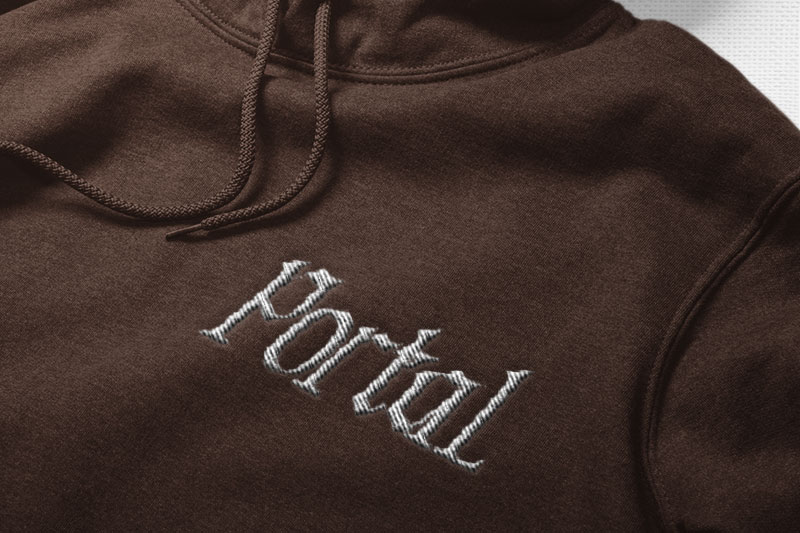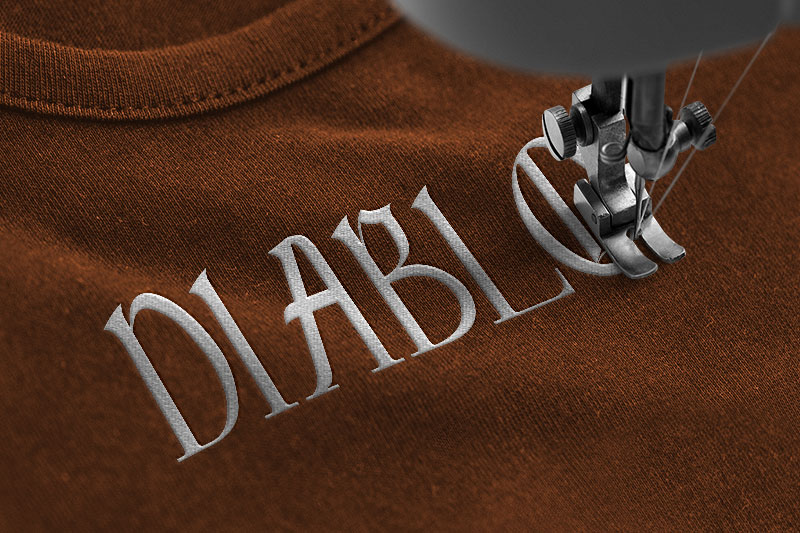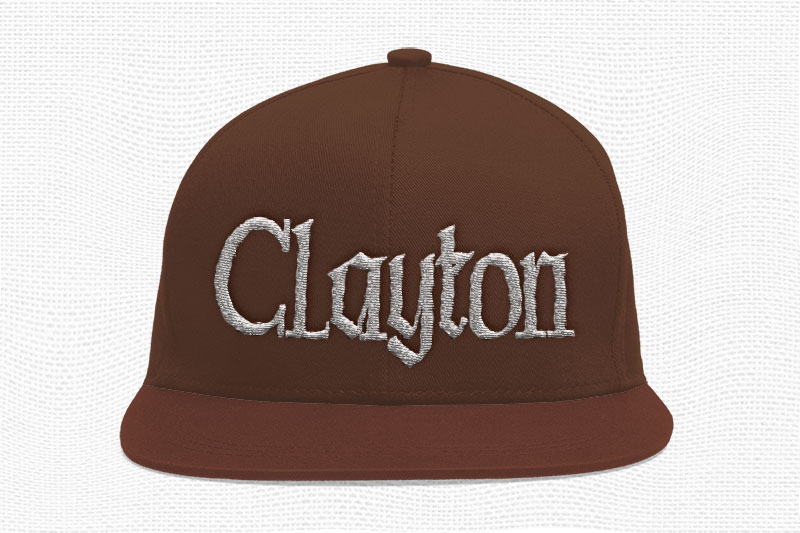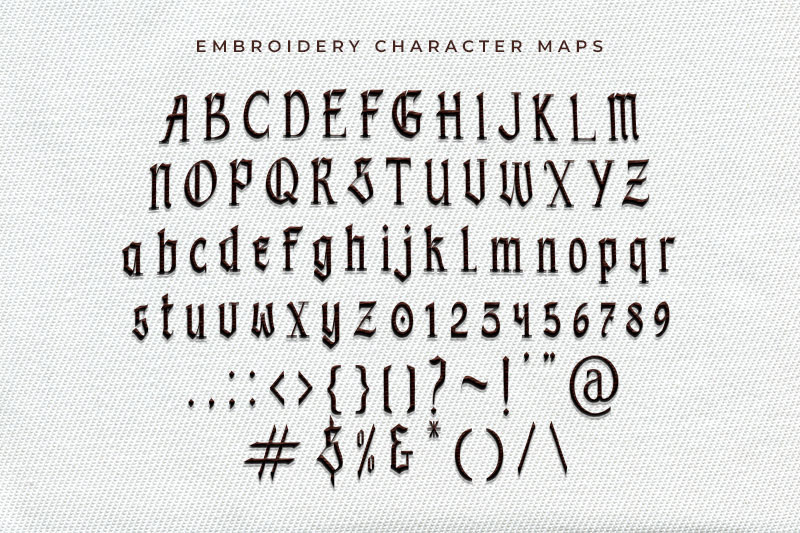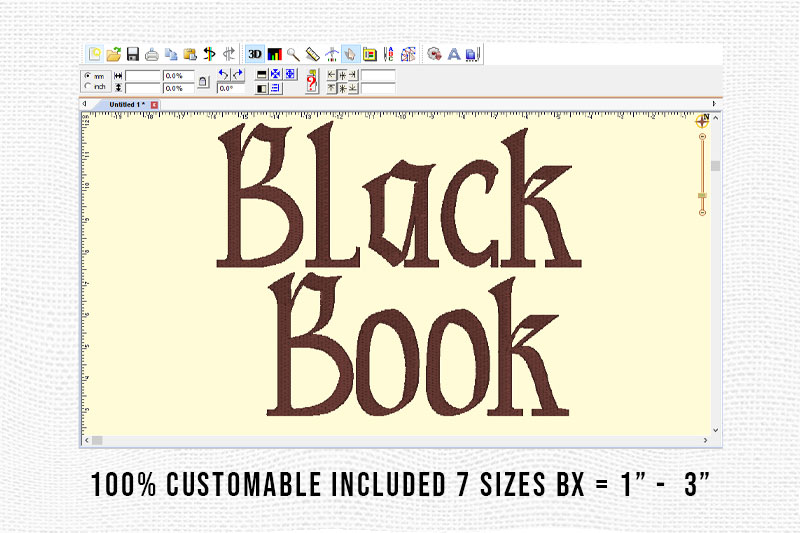
Black Book Embroidery Font provides a new look that is different from the general fonts. This font is a serif font that carries a vintage, simple, and upright feel. It can also be used as a bold and modern font.
with this typeface. There is no need to add excessive pictures and ornaments because Black Book Embroidery Font has presented its identity where a simple yet vintage impression radiates. Black Book Embroidery Font is a typeface that can be used as digital fonts and embroidery fonts. This font can be used as text in t-shirts, hats, jackets, and others.
Posters and magazine cover work especially well when using the Black Book Embroidery Font. This is because even though this font is a serif typeface, it can be seen clearly and can be distinguished per letter. So this font is included in legible fonts.